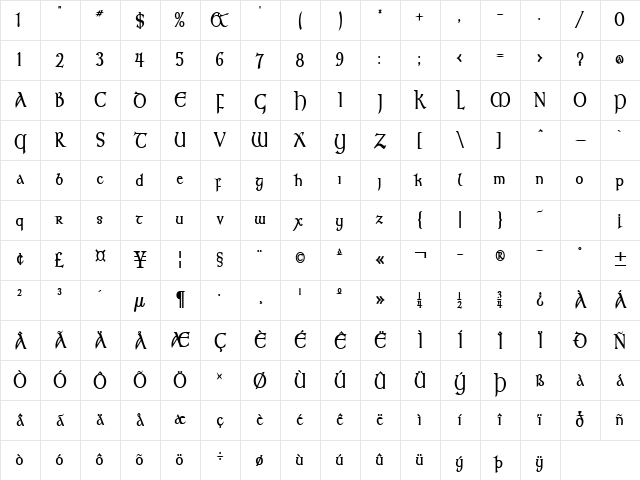
Kelt Thin Bold
Kelt Thin Family
Complete Kelt Thin Bold glyph index. Displaying only characters natively supported by Kelt Thin Bold font.
Design Context for Kelt Thin
Kelt Thin is a composed and adaptable typeface that performs quietly and consistently across a wide range of design contexts. Its bold stroke weight gives it real presence on the page.